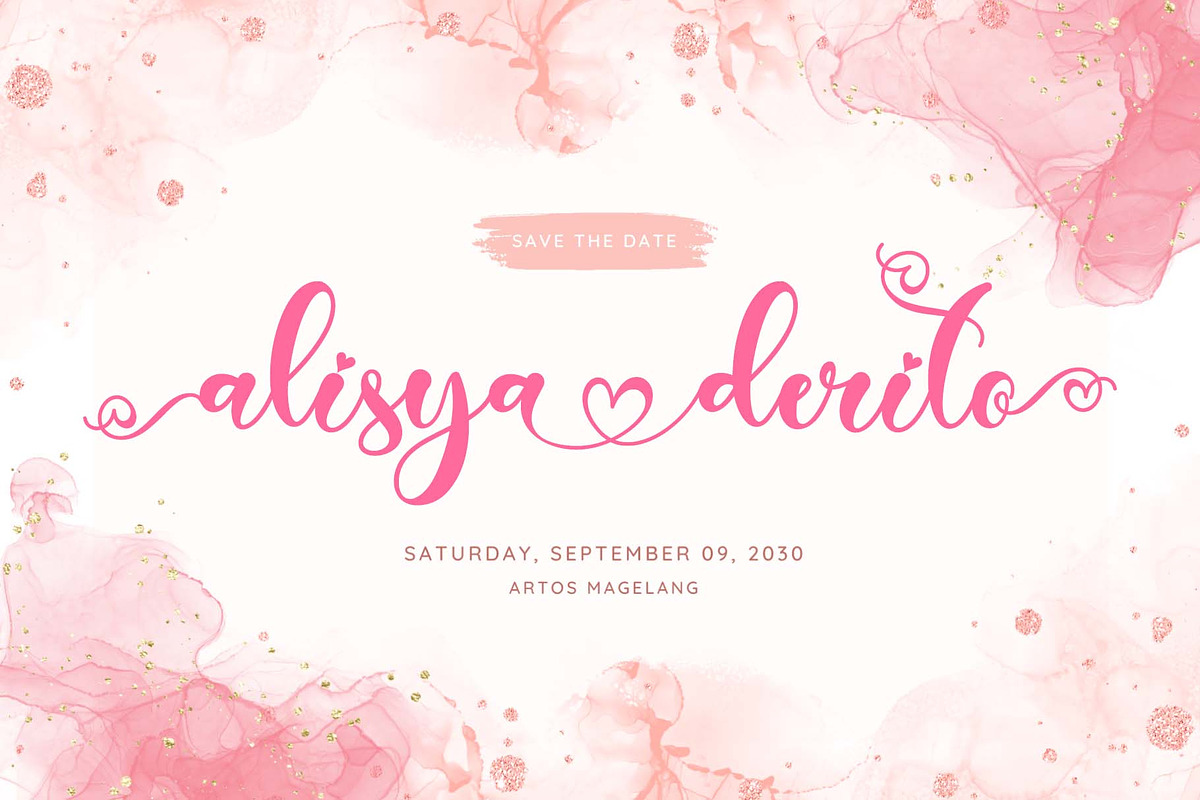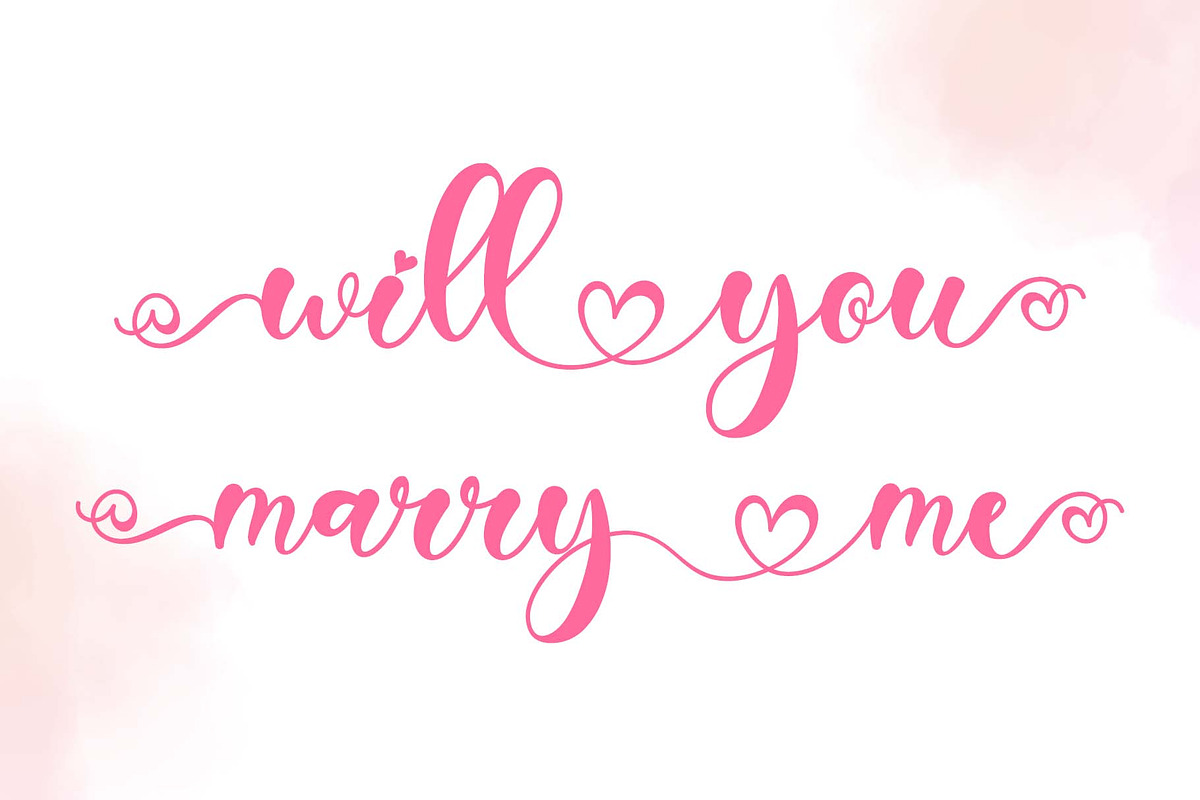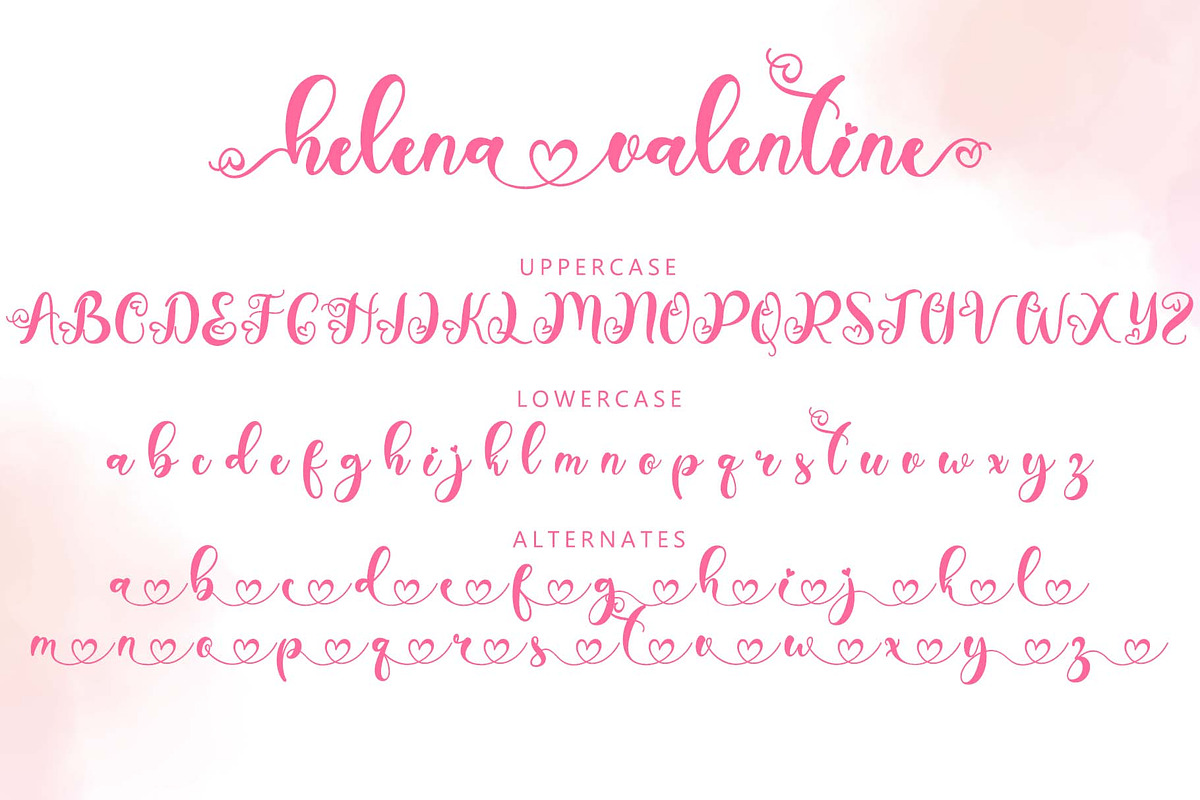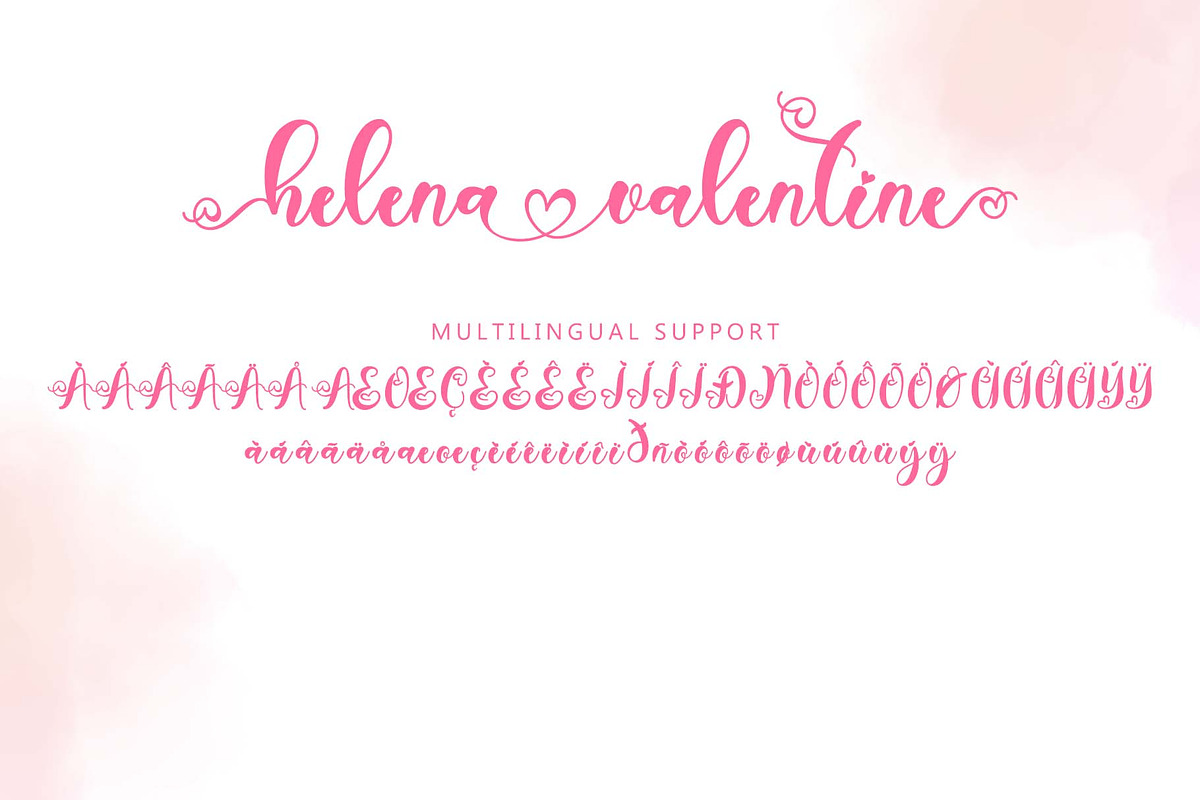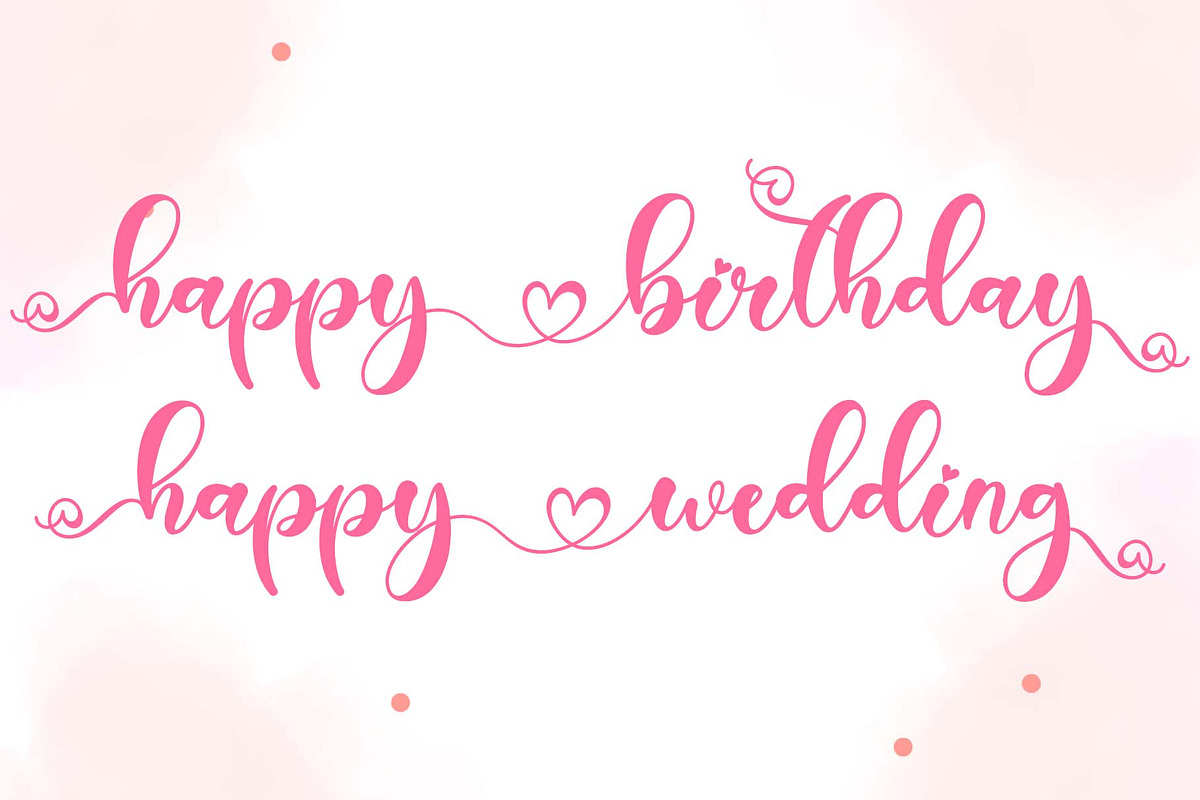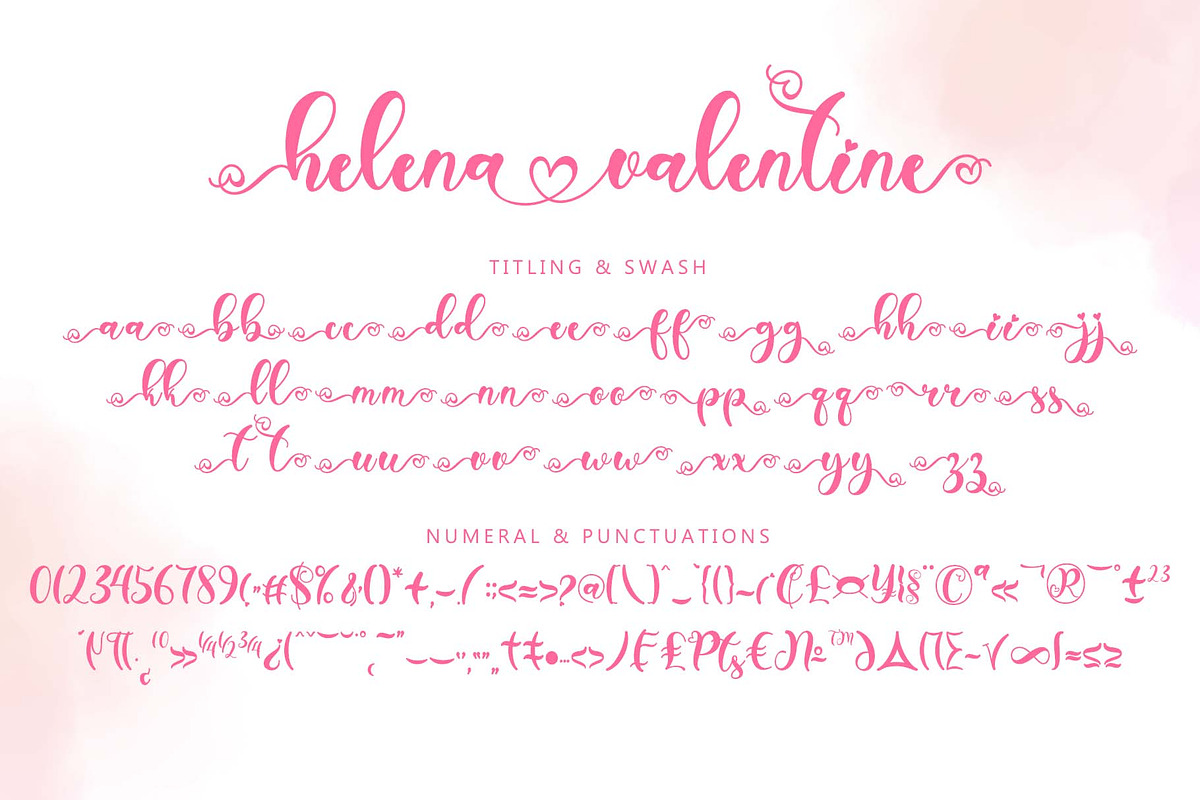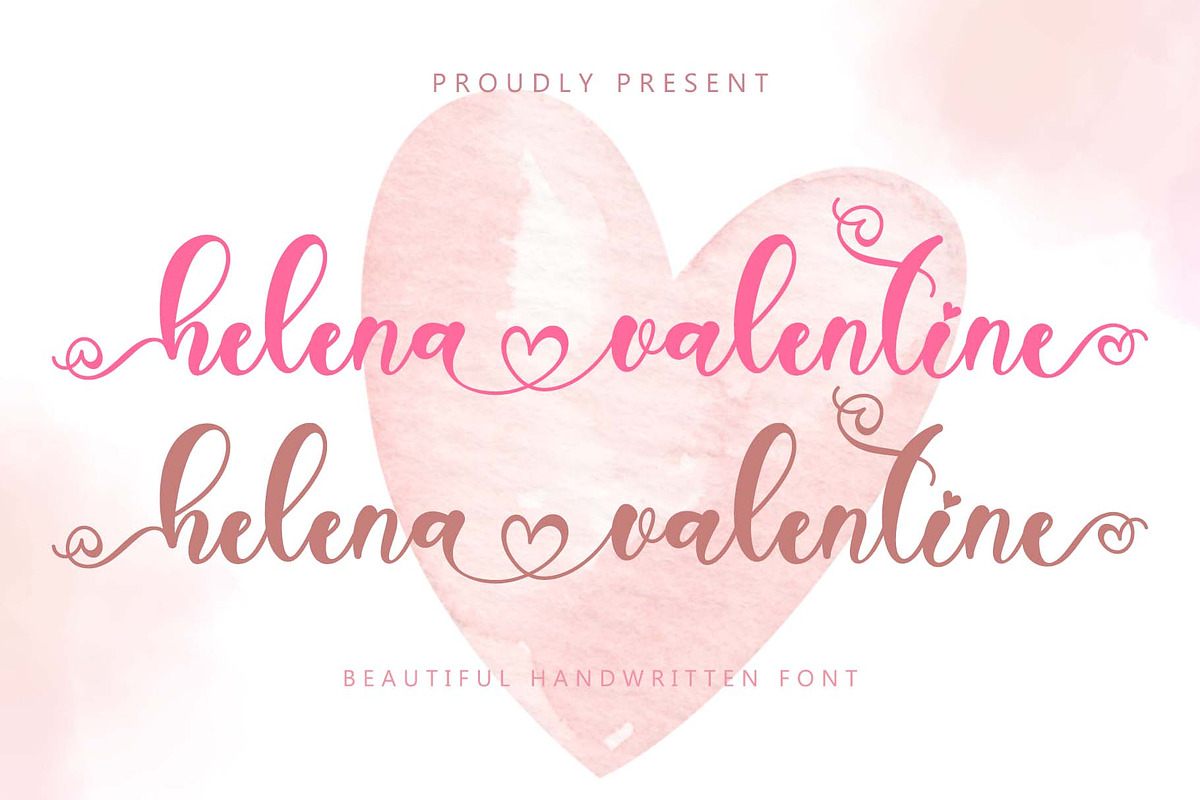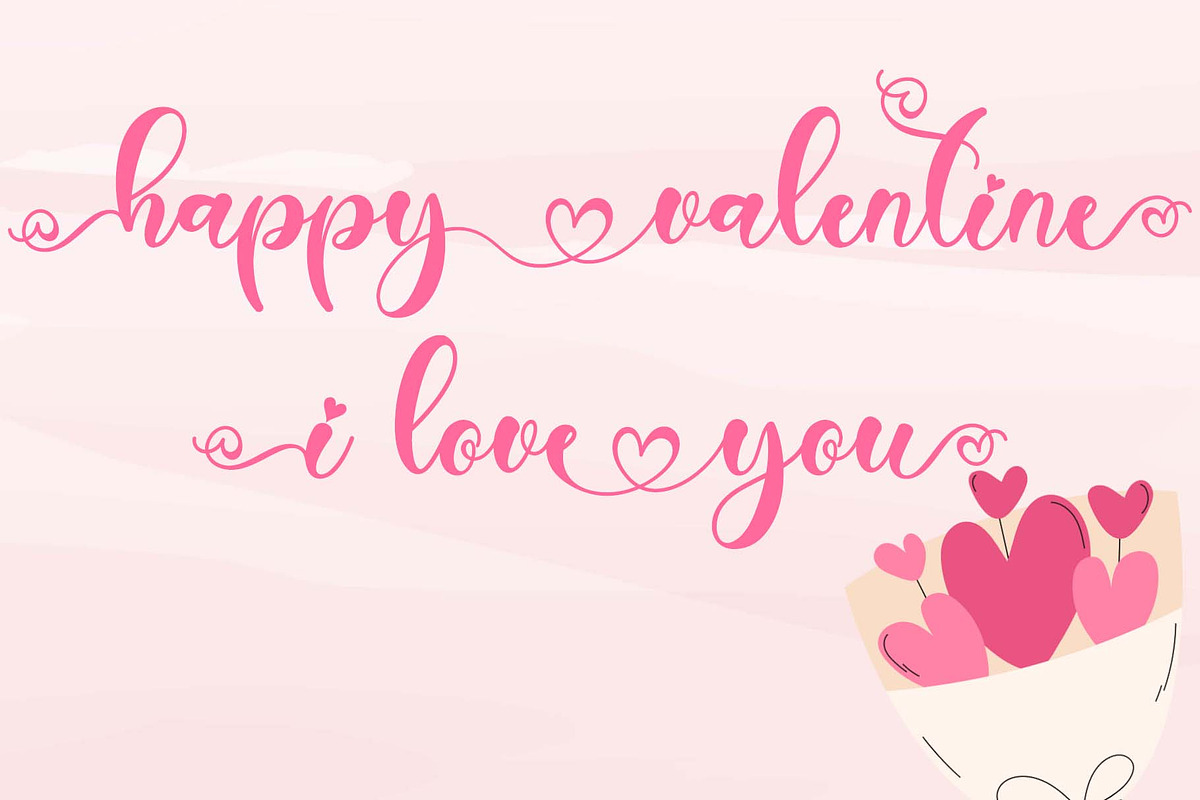
Helena Valentine
"Helena Valentine" is a beautiful and lovely handwritten font. This font is equipped with uppercase, lowercase, alternates, swashes, titling, numerals, punctuations and multilingual support. It is very suitable for use for valentine, wedding, photography, invitations, stickers, posters, prints and others.